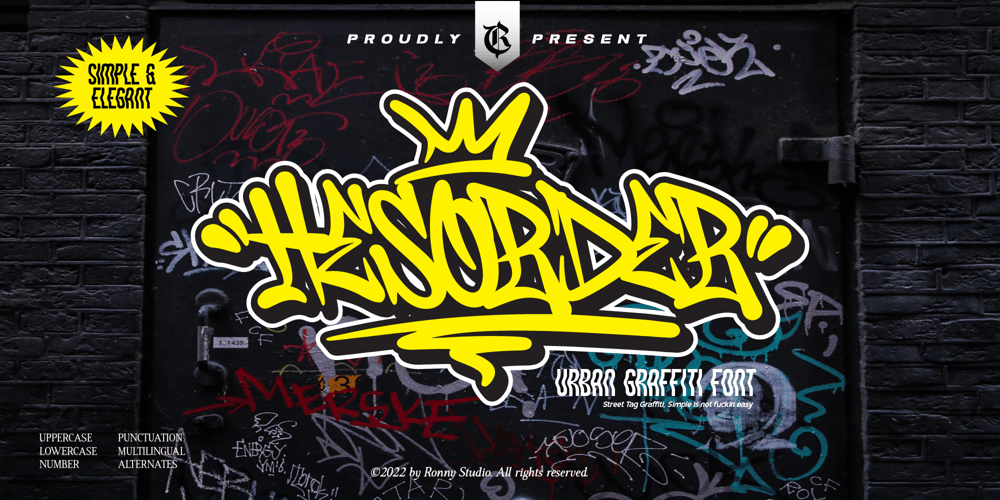
Hesorder Font Family was designed by Rony Rizki Jaya and published by Ronny Studio. Hesorder contains 2 styles and family package options. Hesorder font Inspired by street graffiti markings style in many big cities. This style is bolder and easier to read, perfect for your “street art” design style. I incorporate real graffiti experience into computer fonts, I think it will be different to other fonts if you can feel it, because I draw graffiti, mark and throw up since I was in high school.Features :- All Caps- numbers and punctuation- Alternate- multilingual- Swash / Ornament- PUA encodedPlease contact us if you have any questions. Enjoy Crafting and thanks for supporting us! :)Thank you